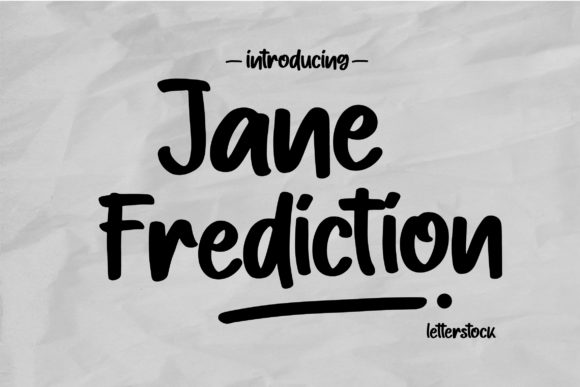
With Jane Frediction Font, unleash your creativity and craft captivating designs that leave an extraordinary impression. A display font like no other, it embraces a whimsical charm, effortlessly capturing the essence of playfulness and warmth. Jane Frediction is not just a font; it's an adventure that takes you on a journey of imagination and style.
Designed with artistry, Jane Frediction perfectly adorns branding projects, transforming logos into works of art. Its elegant curves and graceful strokes bring a touch of sophistication to product packaging, making your products stand out on shelves. Invitations adorned with Jane Frediction radiate a personal touch, inviting guests to an unforgettable experience.
Quotes take on a new life when rendered in Jane Frediction, their messages resonating with a charming appeal. T-shirts emblazoned with Jane Frediction elevate everyday wear into stylish statements, expressing your individuality with a playful twist. Labels and posters come alive with Jane Frediction's delightful presence, capturing attention and igniting conversations.
Dive into the world of Jane Frediction, where creativity knows no bounds, and your projects blossom with a touch of magic. Embrace the beauty of this display font and embark on a creative journey that leads you to extraordinary design destinations.